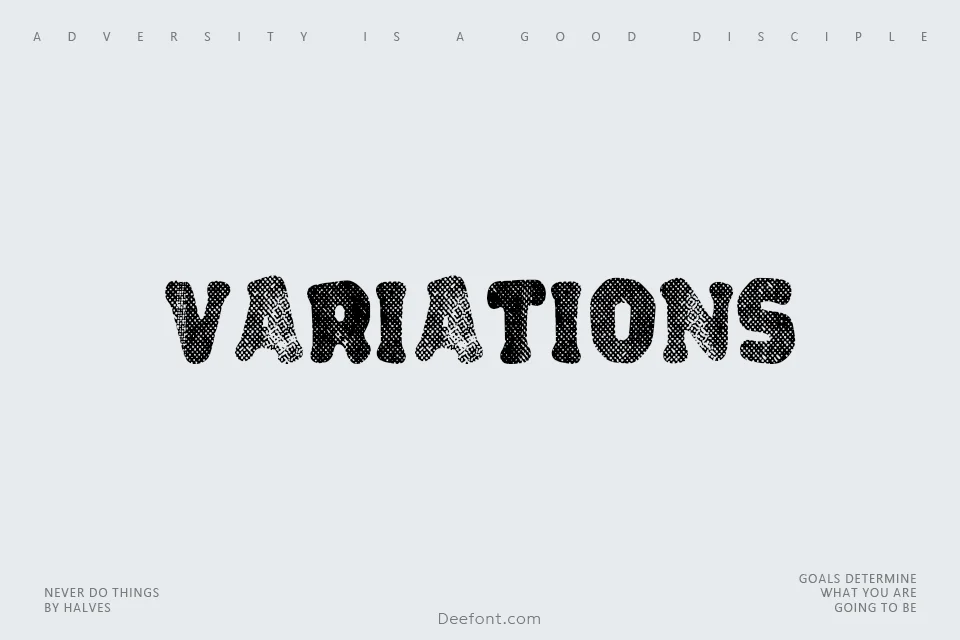
Variations Font
Variations is a distinctive display font that brings creative flair and visual interest to your design projects. Crafted by imagex, this versatile typeface combines decorative elements with contemporary style, making it perfect for posters, headlines, and eye-catching graphics. The font’s unique character and playful design aesthetic provide designers with an excellent tool for creating memorable typography that stands out across various creative applications and media.